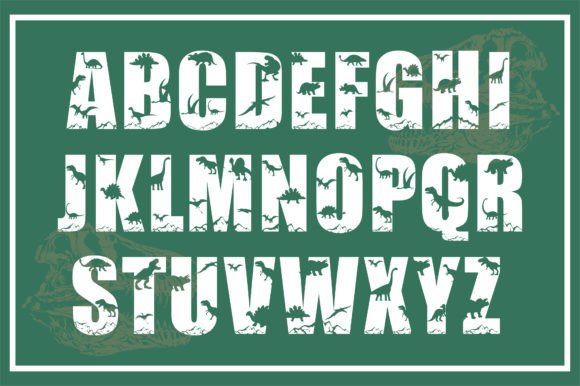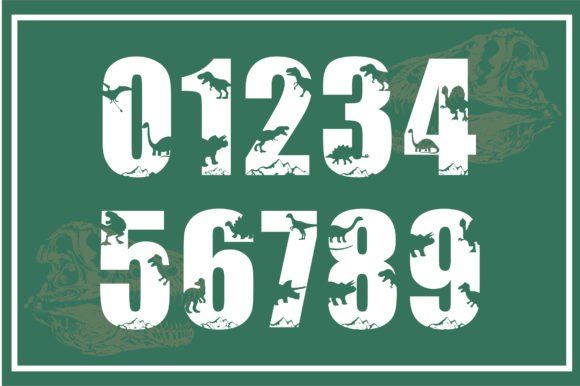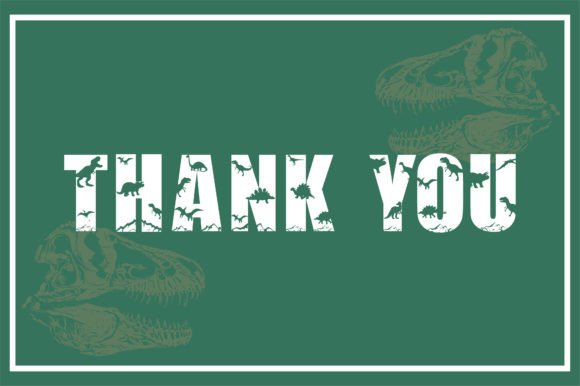
The Roar of Creativity: Unleashing the Power of Dinosaur Font
I’ll never forget the time I was working on a children’s birthday party invitation design. The theme was dinosaurs, and I was determined to make it both fun and engaging. However, as I began to search for the perfect font to match the theme, I found myself stuck. That’s when I stumbled upon the Dinosaur font, and it completely transformed my design. In this article, I’ll share my experience with this fantastic font, its features, and how to make the most of it in your designs.
A Personal Review of Dinosaur Font
As a designer, I’m always on the lookout for fonts that can add a touch of personality to my projects. The Dinosaur font did just that, and I was impressed by its unique features. Here’s what I love about it:
- ✨ Thick-lettered and fun-looking: The Dinosaur font has a bold and playful appearance that’s perfect for children’s themed designs.
- ✅ Highly versatile: This font can be used for a wide range of design projects, from party invitations to educational materials.
- 🎉 Bright and cheerful vibe: The font’s playful nature makes it an excellent choice for designs that require a fun and lively atmosphere.
While the Dinosaur font is an excellent choice for many design projects, it’s not without its quirks. Here are a few things to keep in mind:
- 🤔 Limited use in formal designs: Due to its playful nature, the Dinosaur font may not be suitable for formal or professional designs.
- ⚠️ Legibility at small sizes: As with many decorative fonts, the Dinosaur font may become less legible at smaller sizes.
The Story Behind Dinosaur Font
The Dinosaur font was created by a talented type designer who’s passionate about creating fun and playful fonts for creative projects. Inspired by the prehistoric world of dinosaurs, this font is designed to bring a sense of excitement and adventure to your designs. Whether you’re working on a children’s book, a party invitation, or a fun educational project, the Dinosaur font is sure to add a touch of personality and whimsy.
| Font Name | Dinosaur Font |
| Author | AvocadoSVG |
Q: What type of designs is the Dinosaur font best suited for?
A: The Dinosaur font is perfect for children’s themed designs, party invitations, educational materials, and any project that requires a fun and playful touch.
Q: Is the Dinosaur font available in different weights or styles?
A: The Dinosaur font may be available in different weights or styles, depending on the version you have. Check the font documentation or contact the designer for more information.